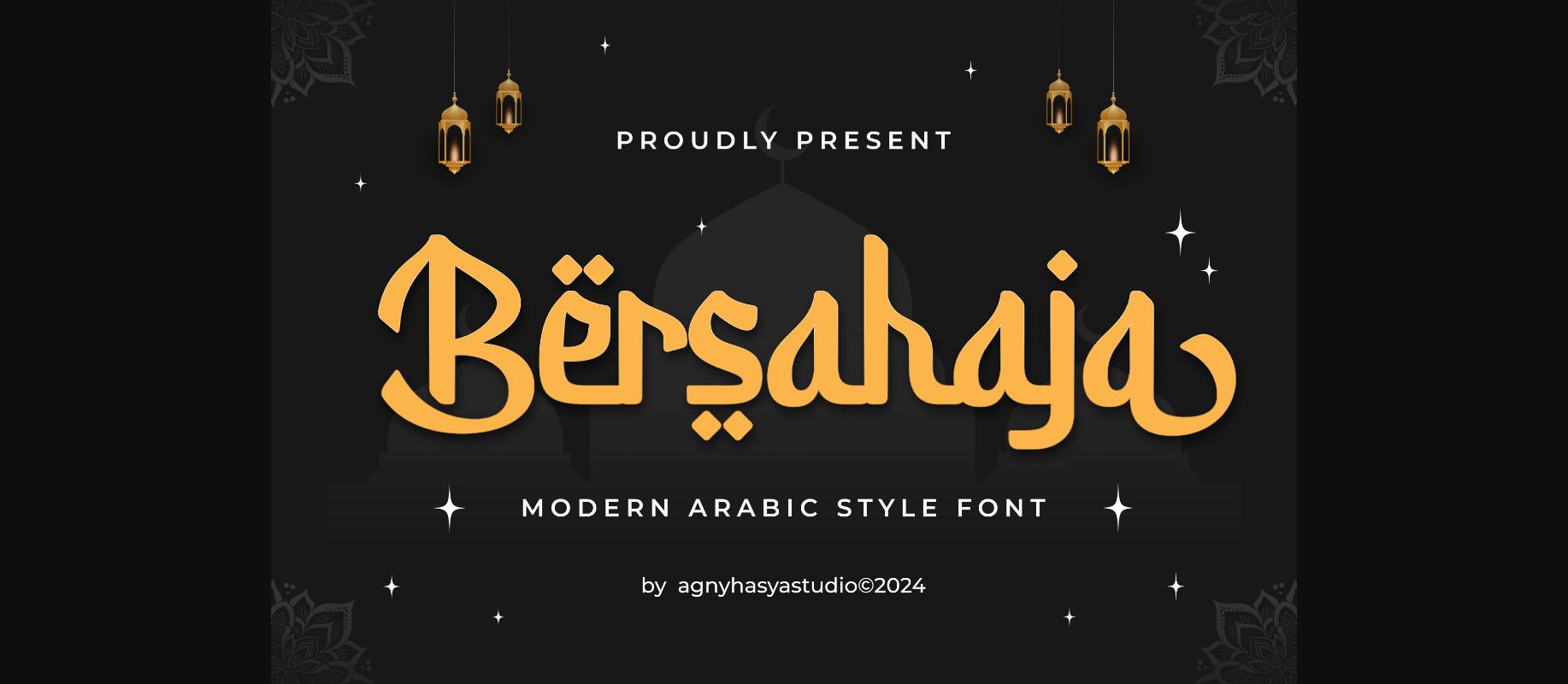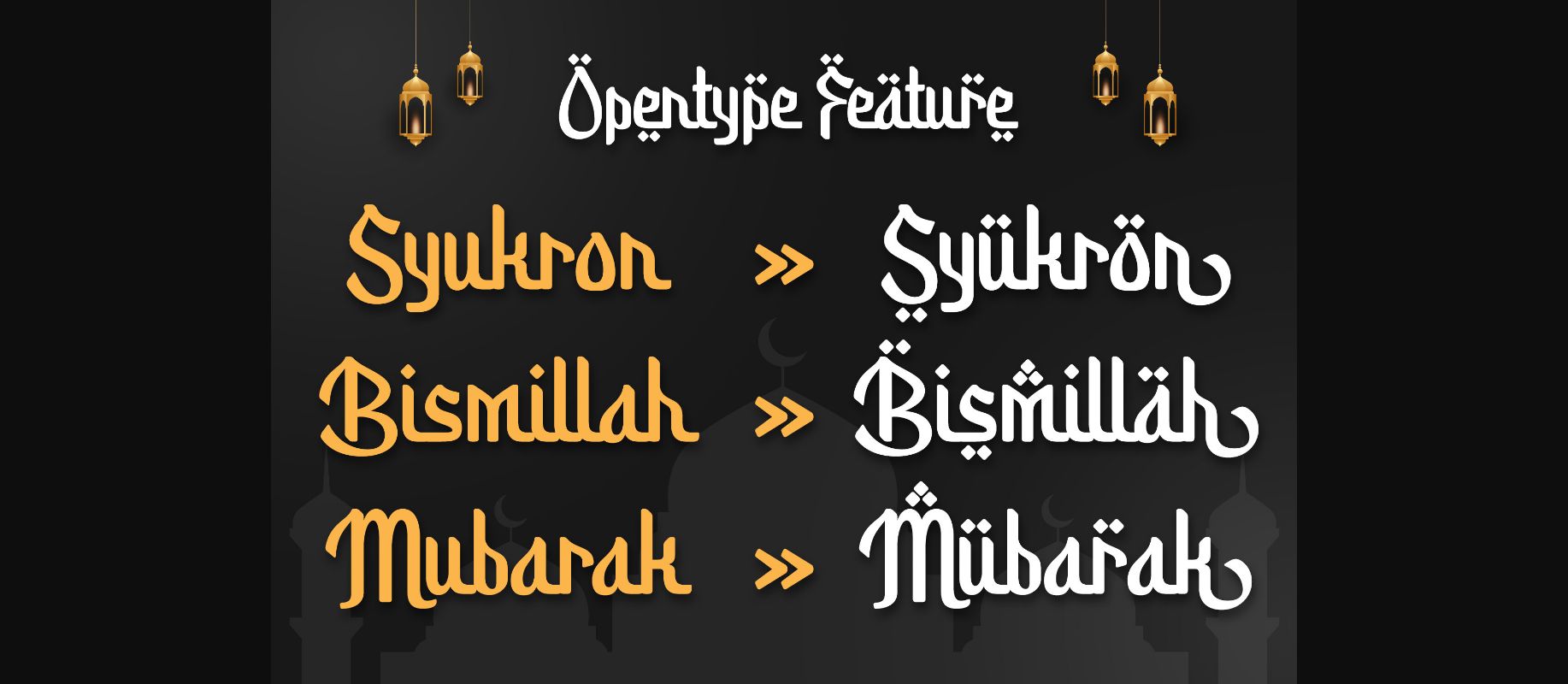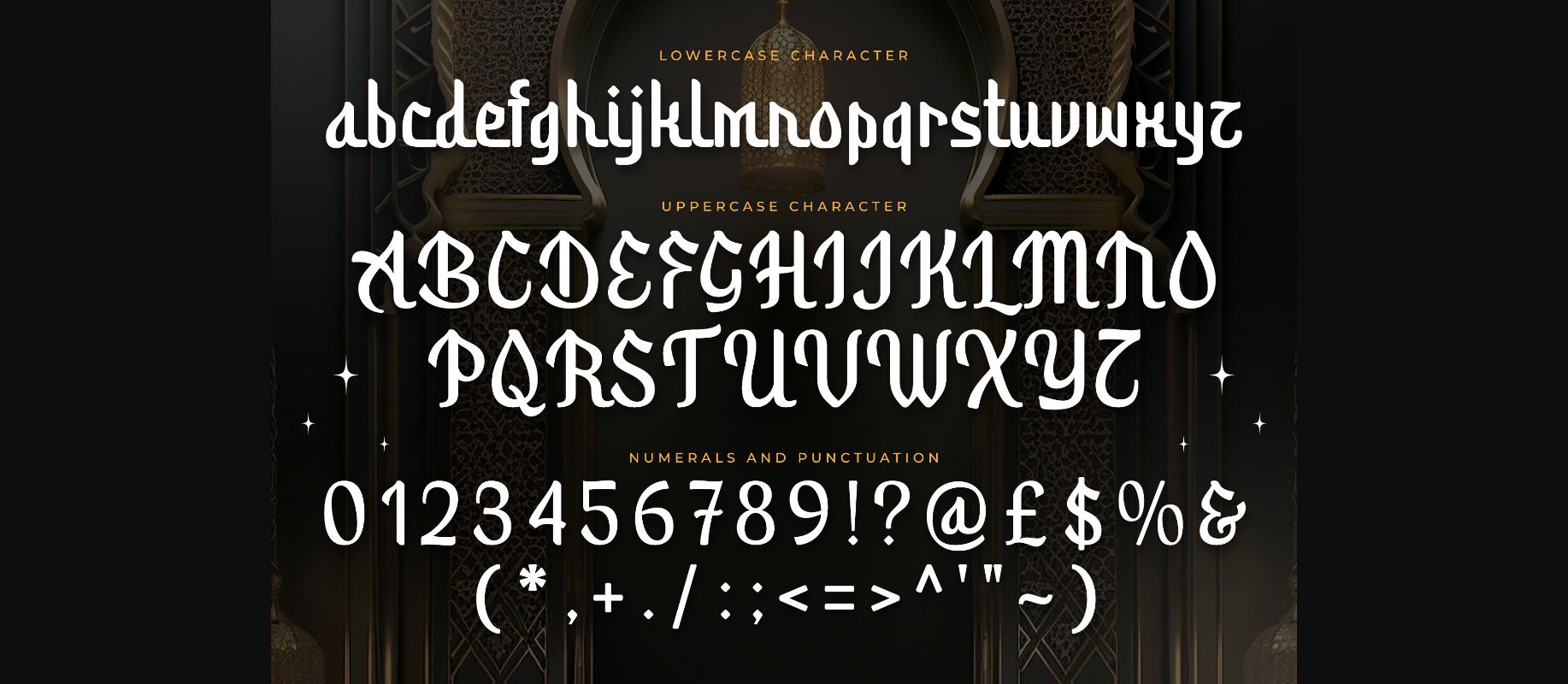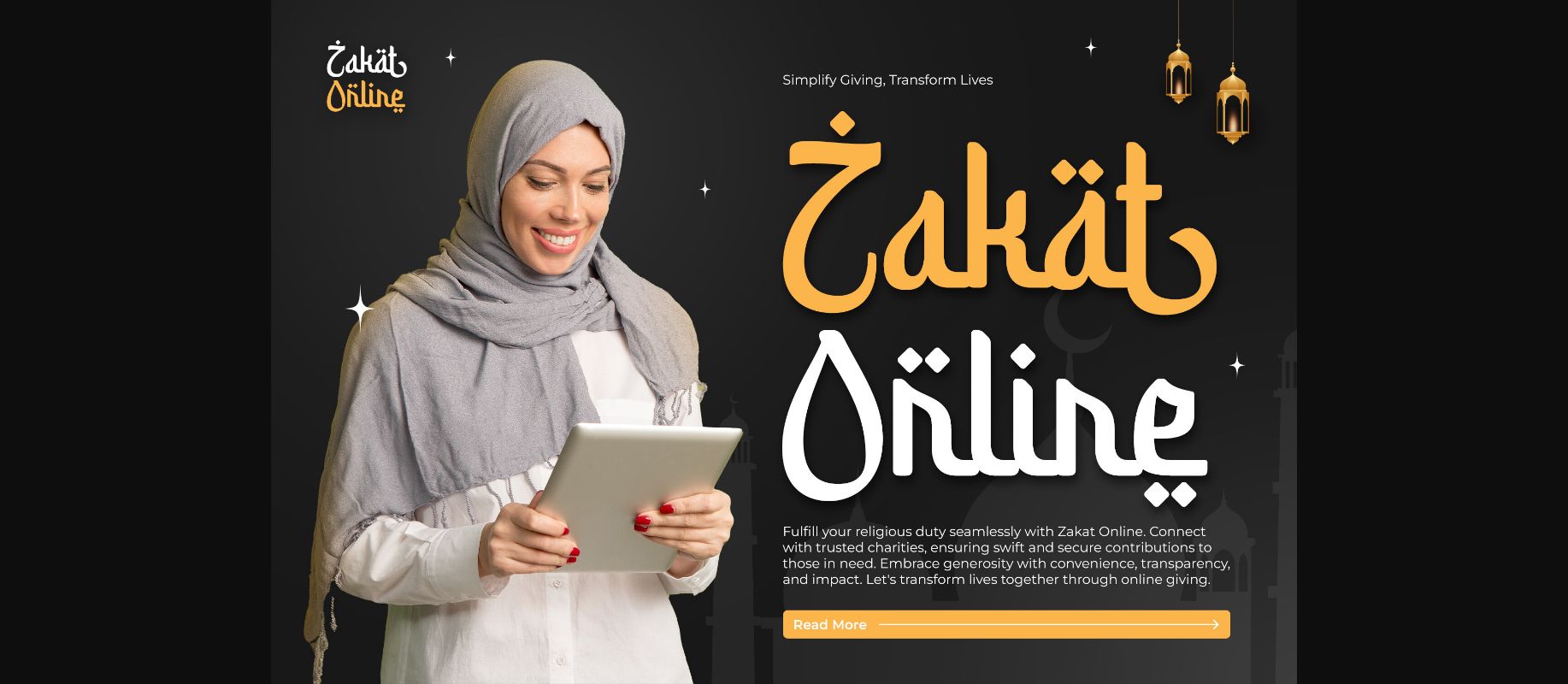
About Bersahaja Font
Introducing Bersahaja is a modern Islamic and Arabic-style display typeface that is perfect for Islamic event design projects, especially during Ramadan.This typeface comes with unique alternates and ligatures, allowing you to experiment with character styles, resulting in visually interesting and cool typography.